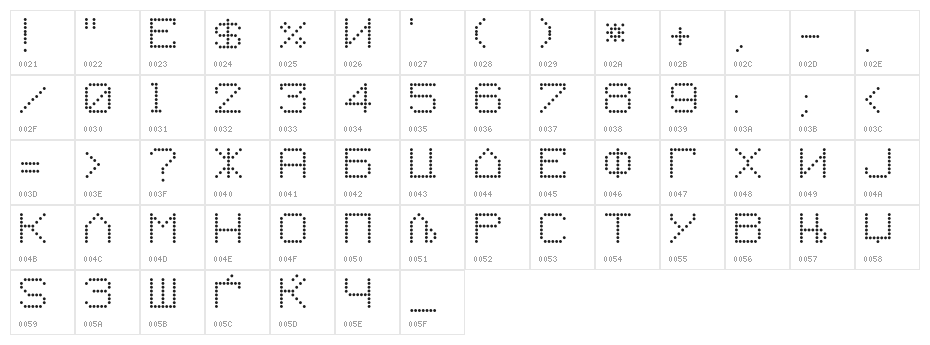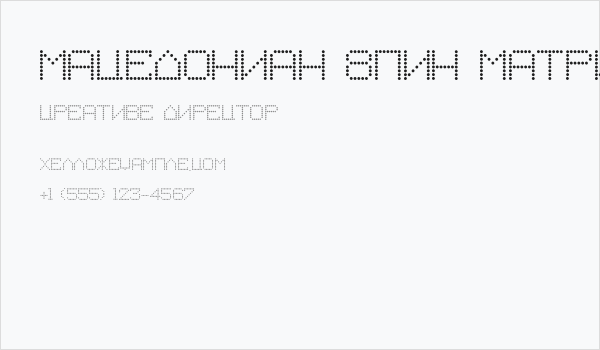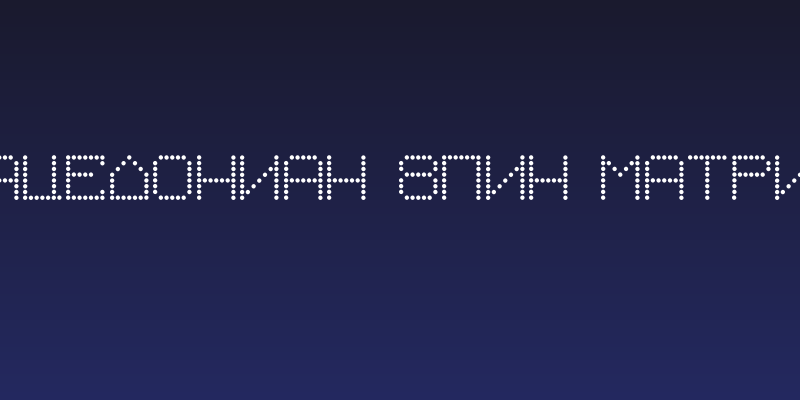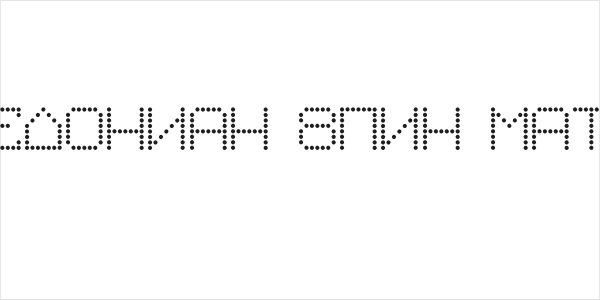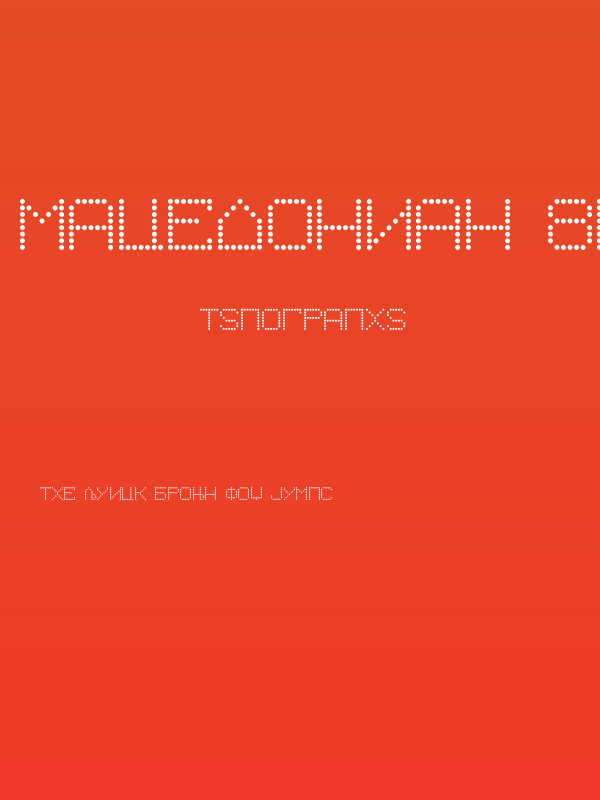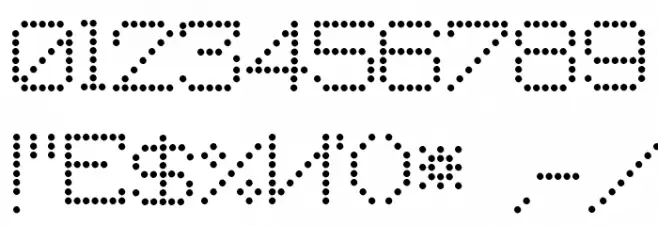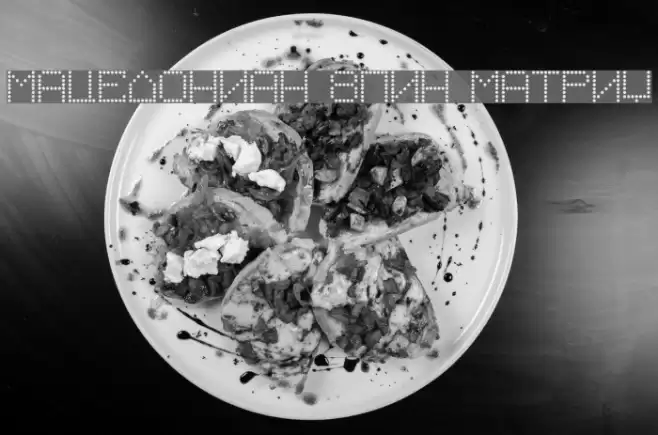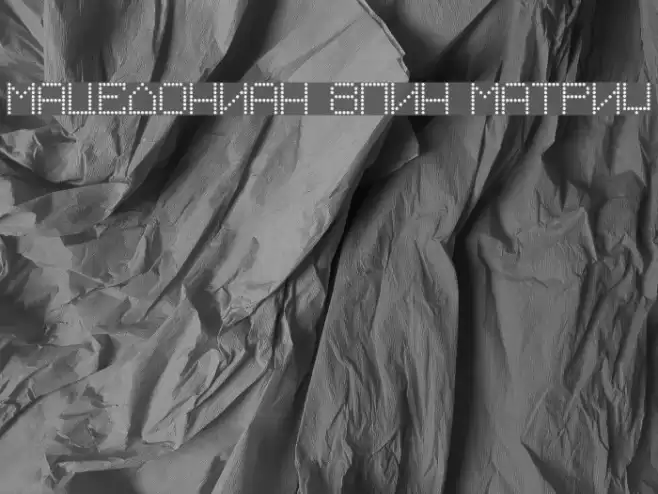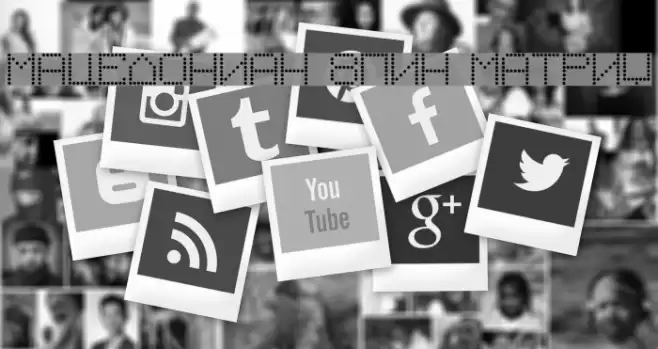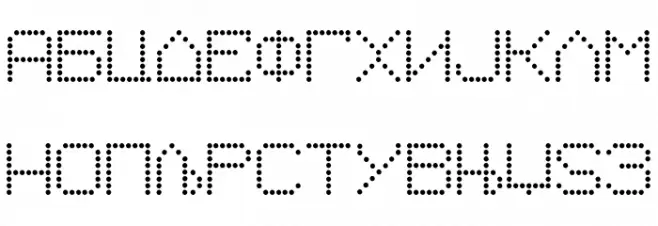
Macedonian 8pin Matrix Font
| 全体的なスタイル | Retro, Digital |
| 用途 | Headlines, Logos, Digital Displays |
| おすすめプロジェクト | Ideal for digital displays, retro-themed designs, tech-related branding, and creative projects that require a unique, vintage digital look. |